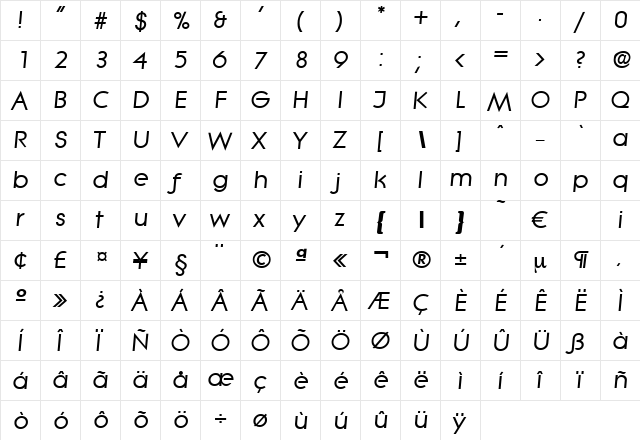
Litera-BoldIta Regular
Design Context for Litera-BoldIta Typeface
Litera-BoldIta offers clean, dependable letterforms without strong stylistic allegiance, making it a practical choice for designers who need flexibility. The heavy weight commands attention and anchors typographic hierarchies.